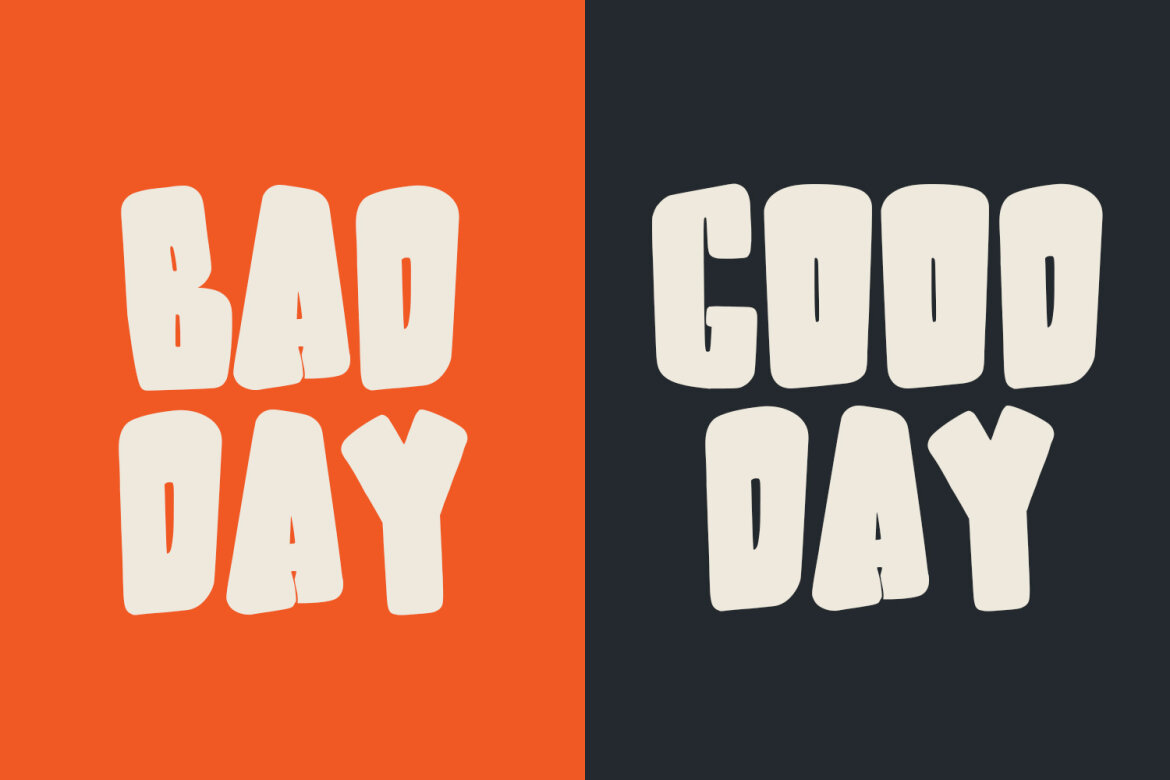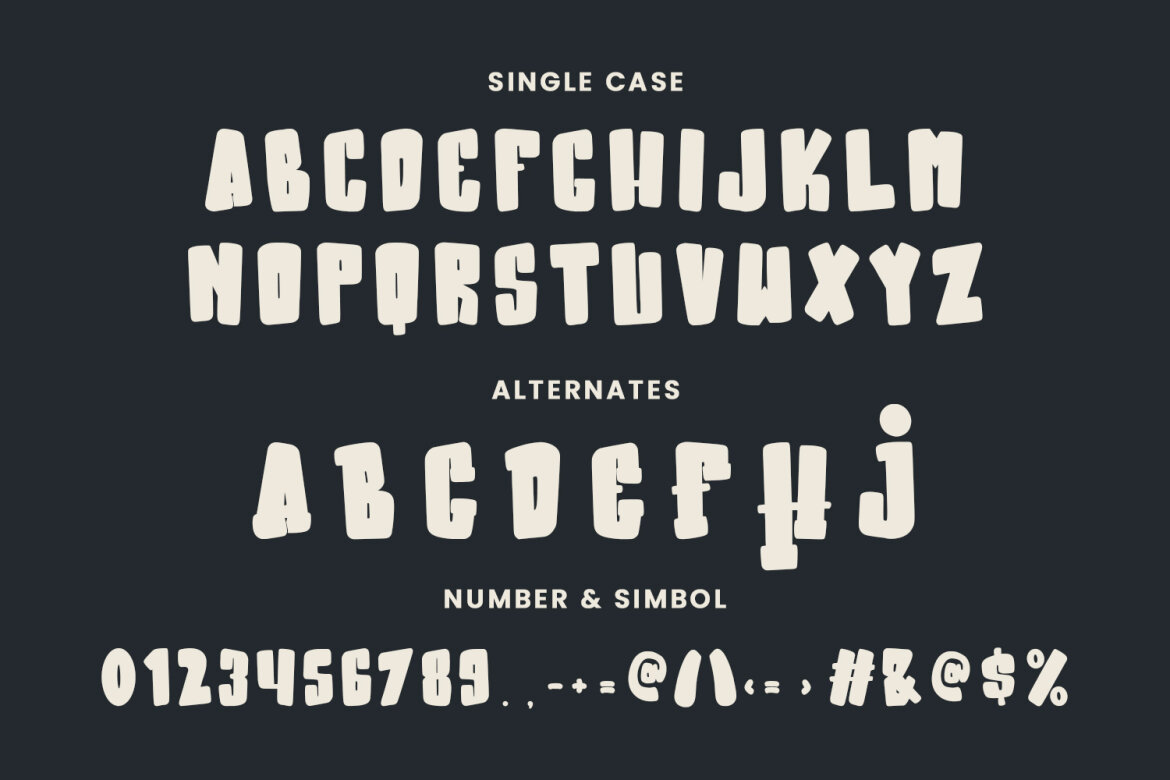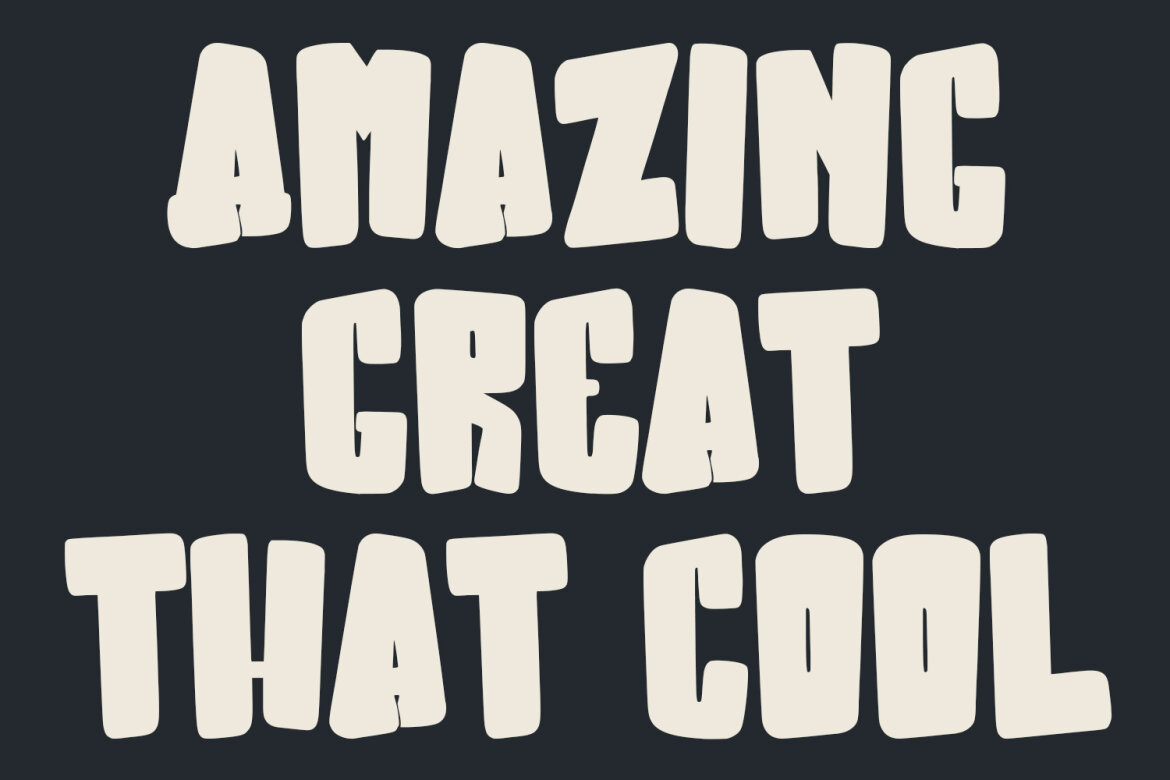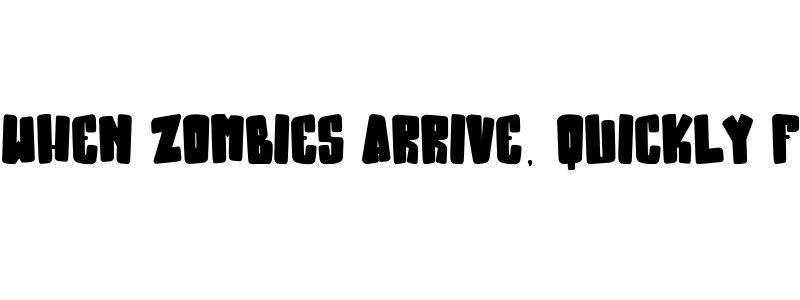
Woasther Typeface Playful FREE Font
Woasther typeface playful display font. Bold stroke, fun character with a bit of ligatures and alternates. To give you an extra creative work. Woasther typeface playful display font support multilingual more than 100+ language. This font is good for logo design, Social media, Movie Titles, Books Titles, a short text even a long text letter and good for your secondary text font with script or serif. Make a stunning work with Woasther typeface playful display font.